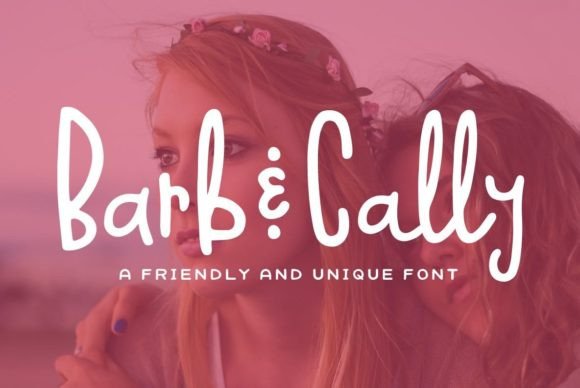
In a world of ordinary fonts, Barb and Cally emerge as a dynamic duo, ready to transform your designs with their captivating charm. This sans serif font family, meticulously crafted by Denise Chandler, embodies the essence of collaboration and creativity, mirroring the harmonious partnership of Barb and Cally themselves.
Step into a realm of boundless expression with Barb and Cally, the ultimate font duo for school projects. Their playful and energetic personalities shine through in every letter, adding a touch of whimsy and individuality to your assignments. Whether you're creating captivating presentations, eye-catching posters, or imaginative stories, Barb and Cally will be your trusty companions, helping you convey your ideas with flair and originality.
Unleash your inner artist and let Barb and Cally work their magic on your designs. Their simple and casual style exudes a youthful exuberance, injecting a breath of fresh air into your projects. From vibrant posters that demand attention to engaging worksheets that spark curiosity, Barb and Cally will effortlessly elevate your creations, making them stand out from the ordinary.
Dive into the world of Barb and Cally and discover a font family that's more than just a collection of letters. It's a partnership, a friendship, a collaboration that will inspire you to think outside the box and create designs that leave a lasting impression. Join the countless designers who have embraced the magic of Barb and Cally and embark on a creative journey like no other.